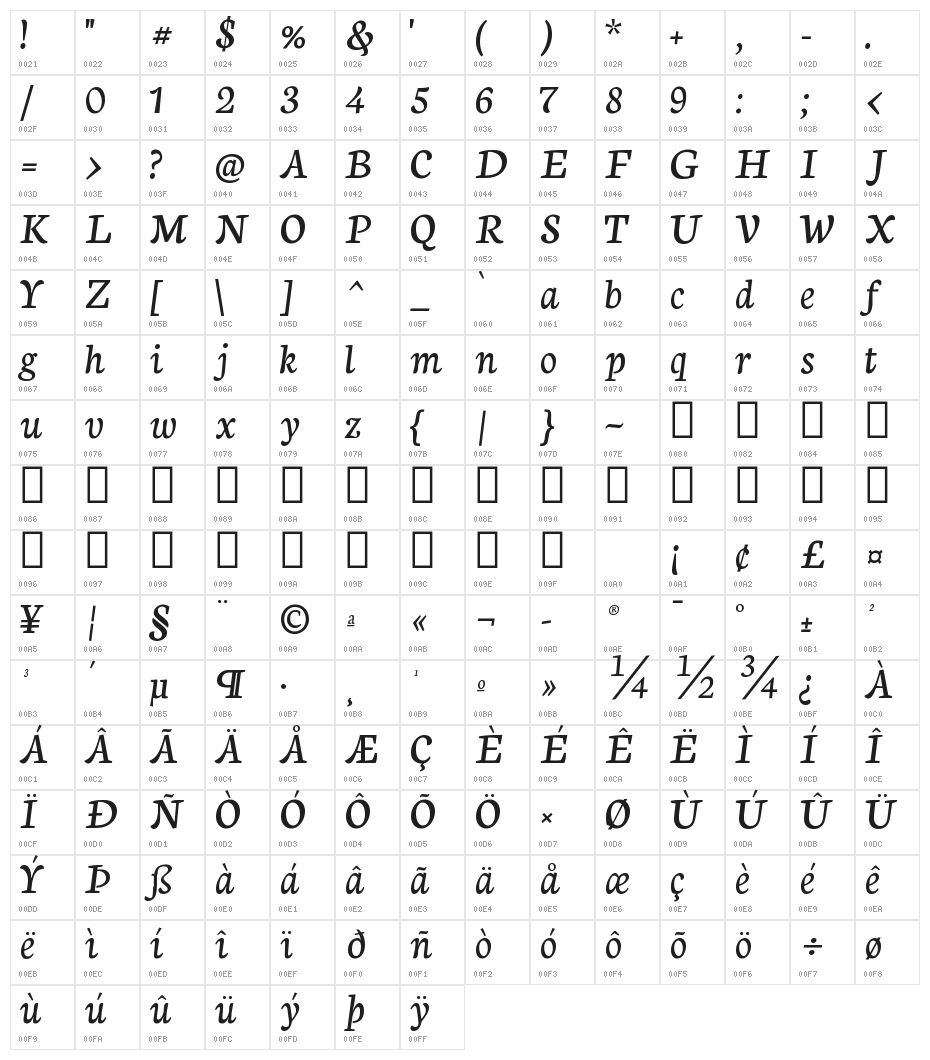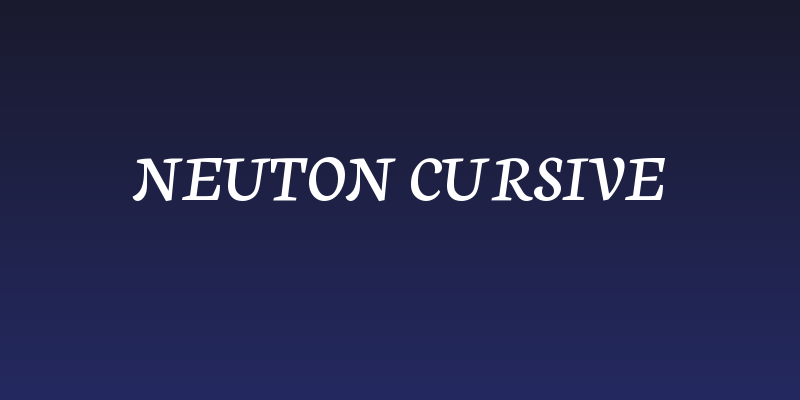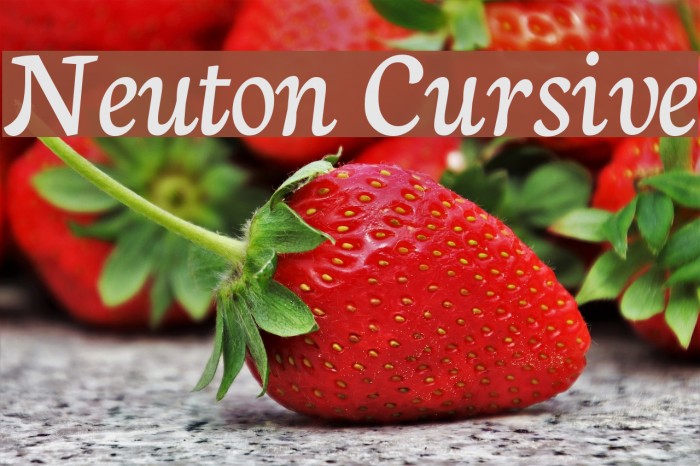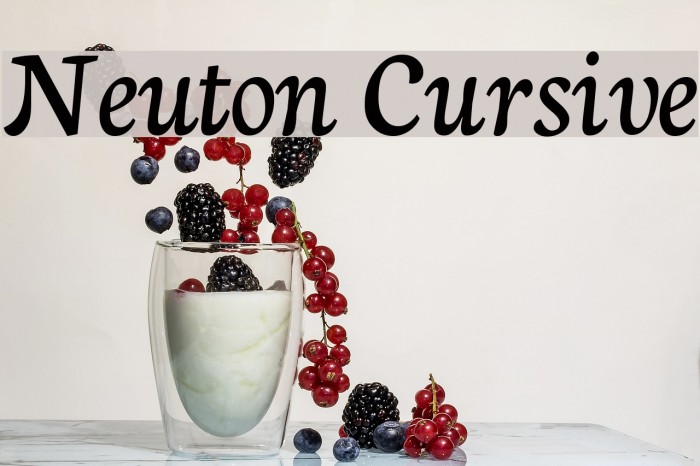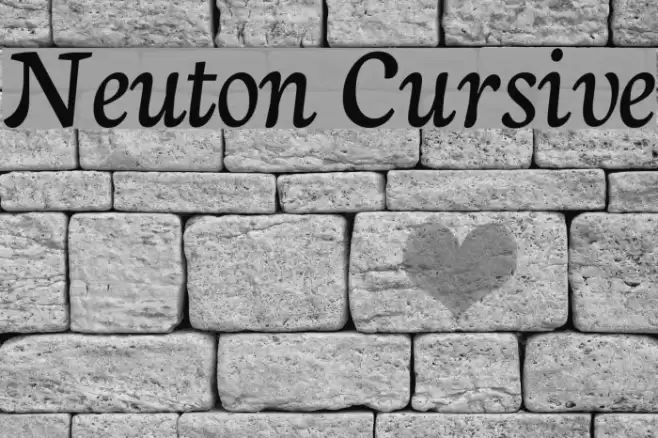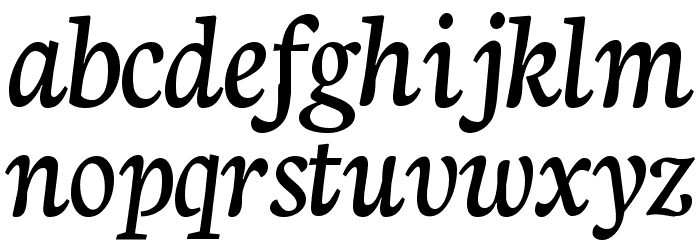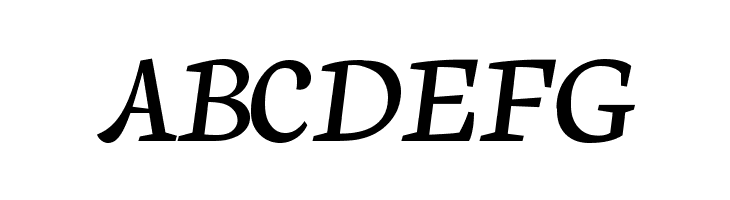
Neuton Cursive Font
Neuton Cursive Description
This font exhibits a classic cursive style with a modern twist, featuring elegant, flowing lines and a slight slant that adds a sense of motion and grace. The uppercase letters are bold and prominent, while the lowercase letters maintain a consistent and harmonious flow. The numerals are well-proportioned and align seamlessly with the overall design. Special characters are crafted with attention to detail, enhancing the font's versatility. The strokes are smooth and consistent, providing a balanced contrast that ensures readability while maintaining an artistic flair.
| Use Case | Headlines, Logos, Invitations |
| Proposed Projects | Ideal for wedding invitations, elegant branding, greeting cards, and editorial design. |